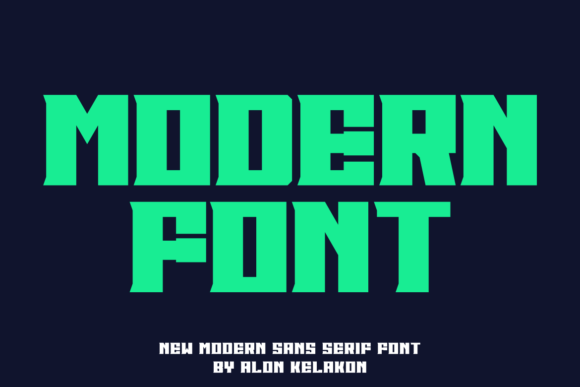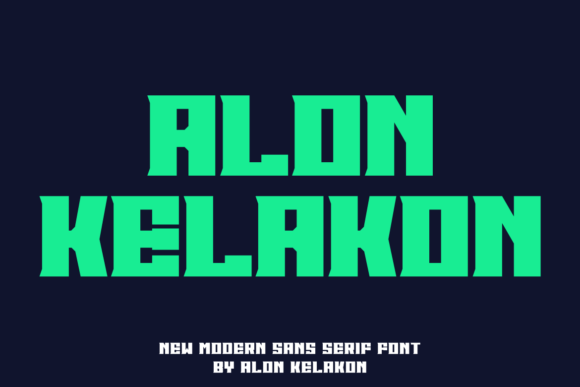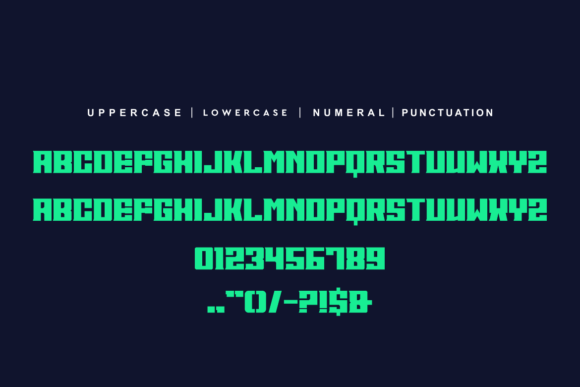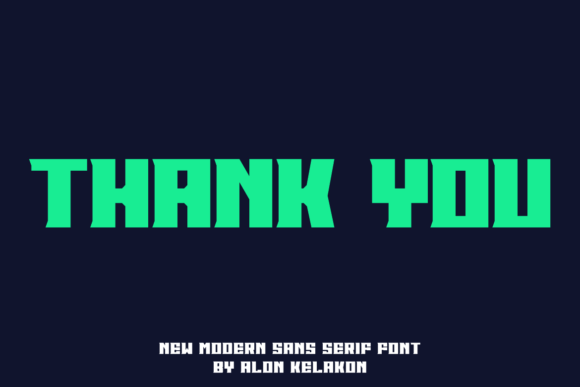
Introduction to Dekard Ngespor Font
You’ve spent hours brainstorming the perfect concept for your latest design project, pouring your heart and soul into every detail. And then, it hits you – the perfect font. One that perfectly captures the essence of your creative vision. For designers, finding that elusive font can be a game-changer, elevating your project from good to great.
| 👤 Author | alonkelakon |
That’s where the Dekard Ngespor Font comes in – a unique and versatile design resource that’s ready to take your creative project to the next level. With its high-quality aesthetic and transparent background, this font is perfect for a wide range of applications, from labeling and clothing to movie screens and album covers.
Key Features of Dekard Ngespor Font
- Features a transparent background, allowing for easy customization and layering
- Includes a range of glyphs and characters, making it suitable for a variety of design applications
- Designed to be highly legible and versatile, with a clean and modern aesthetic
- Comes in a range of font sizes, with a recommended resolution of 300 DPI for optimal quality
- Perfect for designers and artists looking for a high-quality, free design resource for their next creative project
Honest Review: Dekard Ngespor Font
I recently had the chance to experiment with the Dekard Ngespor Font, and I must say it’s a great addition to any designer’s toolkit. The font offers a high-quality, unique aesthetic that can elevate a creative project to the next level.
- ✨ The font’s design is quirky and attention-grabbing, making it perfect for projects that need a bold statement.
- ✨ The font supports a transparent background, allowing for seamless integration into any design.
- ⚠️ The font may not be suitable for projects requiring a more conservative or traditional aesthetic.
- ⚠️ Some users may experience issues with font rendering on certain systems or devices.
Overall, I’m impressed with the Dekard Ngespor Font’s potential and versatility. While it may not be perfect, it’s definitely a valuable resource for designers looking to add some creativity to their projects.
Tips for Getting the Most Out of Dekard Ngespor Font
For a creative project, use Dekard Ngespor Font in conjunction with other design elements to create a visually appealing design. Experiment with different font sizes, colors, and layouts to achieve the desired look. To take your design to the next level, consider using a transparent background to create a modern and sleek design.
Dekard Ngespor Font is ideal for a variety of design projects, including business cards, brochures, and social media graphics. It’s also great for creating a consistent brand identity across multiple platforms. With its high-quality design and transparent background, Dekard Ngespor Font is a valuable design resource for any creative project.